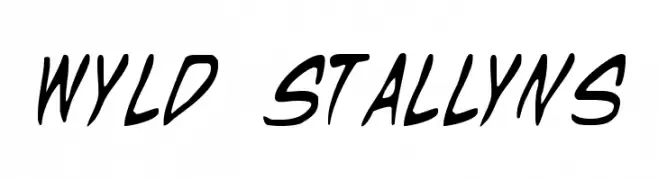
A bold, decorative font with crow silhouettes for each letter.
A playful font with stick figures surfing on each letter.
Animal-themed decorative font with badger illustrations.
A playful font with characters inside cupcake designs, perfect for fun projects.
A whimsical font with characters inside cupcake outlines, perfect for playful designs.
A playful and expressive collection of emoticons using punctuation marks.
A bold, expressive emoticon font with a playful style.
A decorative font with letters enclosed in scroll-like designs, offering a historical and elegant appearance.
A decorative font with uppercase letters in scroll-like frames, offering a vintage look.
A bold, decorative font with intricate geometric patterns.
A decorative font with geometric patterns and Art Deco influences.
An ornate, decorative font with bold uppercase letters framed by floral motifs.
An ornate, decorative font with bold, framed capital letters and floral motifs.
A playful, vampire-themed decorative font with bold, sans-serif letters encased in cartoonish vampire figures.
A whimsical font with letters inside cartoon vampire figures, perfect for themed designs.
A decorative font with drink-themed illustrations, perfect for playful designs.
A playful, drink-themed decorative font with bold, cartoonish illustrations.
A bold, playful font with a hand-drawn, casual style.
A playful, comic-style display font with a hand-drawn appearance.
A playful, cookie-themed decorative font with a bold, three-dimensional style.
A playful, cookie-inspired decorative font with bold, white letters on dark, round backgrounds.
Hand-drawn Easter bunny dingbat illustrations.
A whimsical font with letters inside rabbit silhouettes, perfect for Easter themes.
A whimsical font with letters inside rabbit silhouettes, perfect for festive designs.
A playful font with characters inside black eight-ball designs, ideal for thematic projects.
A playful font with characters inside eight ball designs, perfect for decorative use.
A festive decorative font with playful Santa illustrations.
A festive decorative font featuring whimsical Santa Claus illustrations.
A decorative font with autumn-themed illustrations and motifs.
A decorative font with autumn-themed icons replacing traditional letterforms.
A decorative font with uppercase letters inside tree silhouettes.
A decorative font set for Father's Day with playful and celebratory designs.
A playful, thematic font featuring Father's Day phrases and symbols.
A decorative font with intricate floral patterns inside each character.